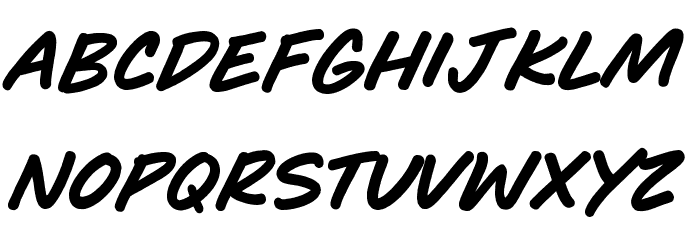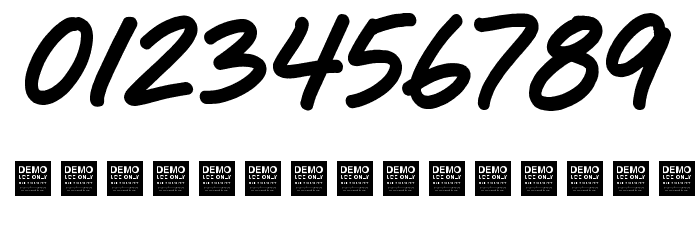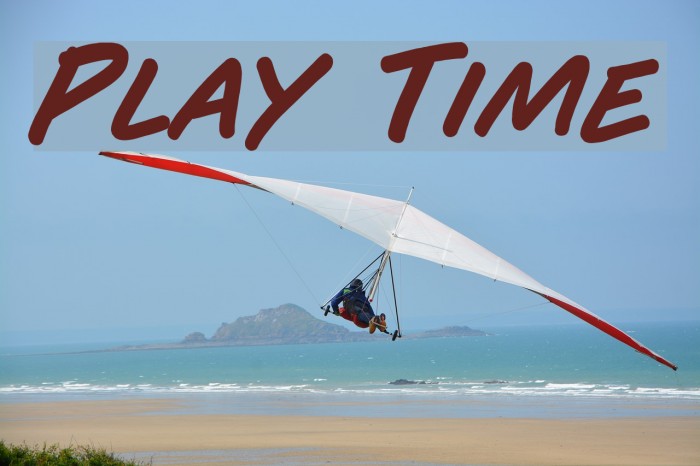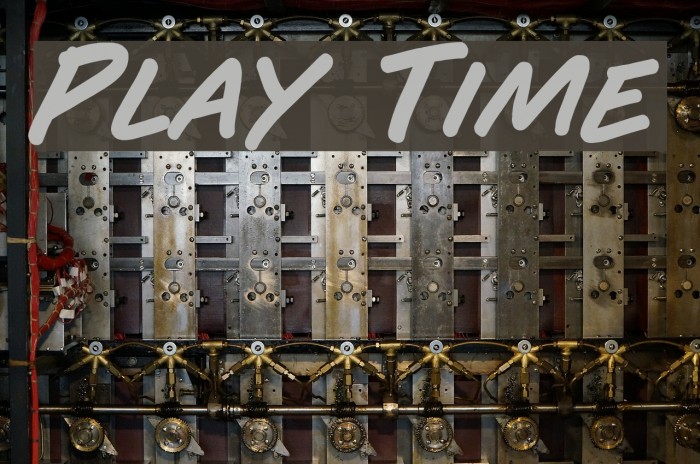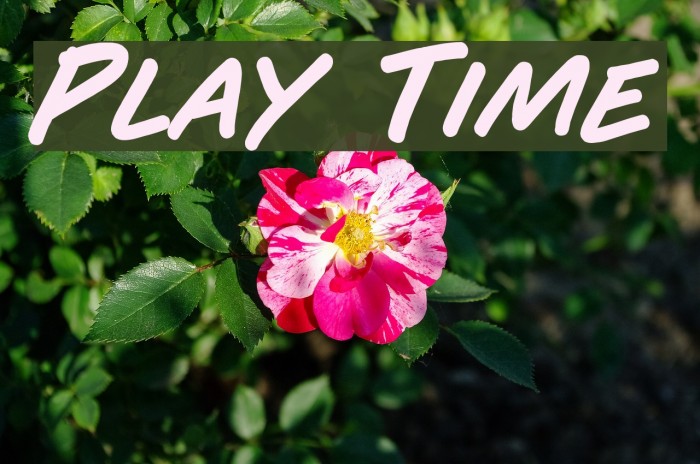
Play Time Font
This font features a playful and energetic script style, characterized by its fluid and dynamic strokes. The letters are slightly slanted, giving a sense of motion and liveliness. The uppercase and lowercase letters are well-balanced, maintaining a consistent flow throughout. The numerals are clear and legible, matching the overall style of the alphabet. This font exudes a casual and friendly vibe, making it suitable for informal and creative projects. Its bold appearance ensures visibility and impact, while the smooth curves add a touch of elegance.
A playful and energetic script font with fluid, dynamic strokes.
- Proposed Projects: Ideal for greeting cards, playful branding, children's books, and casual invitations.
- Category: Script
- Overall Style: Playful
- Use Case: Logos, Headlines, Invitations